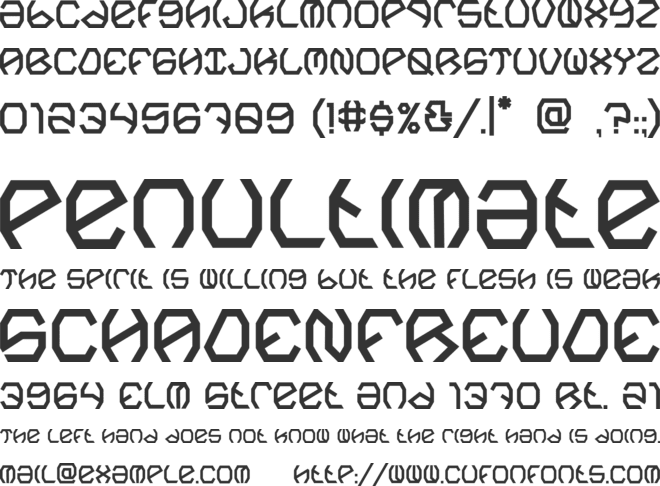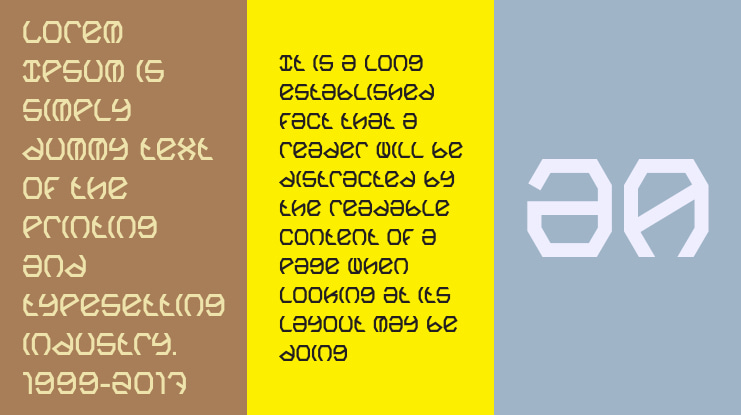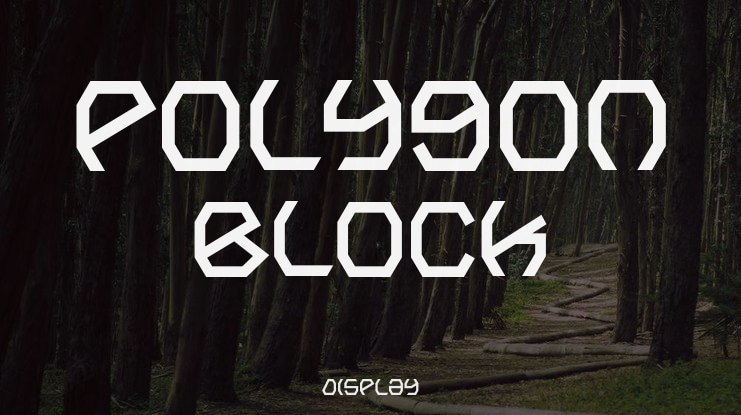
Step into the future with Polygon Block, a geometric sci-fi font designed to embody the essence of digital evolution. Each letterform is constructed with hexagonal and polygonal shapes, reflecting a structured yet edgy personality. This font bridges the gap between advanced technology and artistic clarity. Its clean angles, techno contours, and modern architecture make it a perfect match for futuristic branding, digital posters, game titles, or tech startup identities. Polygon Block thrives in any layout that demands innovation, structure, and high-impact visibility.
This font presents a bold, commanding presence while maintaining versatility across digital and print media. The sleek lines and modular design create a coded visual rhythm that appeals to sci-fi enthusiasts, UX designers, and cyberpunk creatives alike. Use it in film titles, esports branding, digital ads, or tech editorial covers to immediately communicate progress, precision, and futuristic depth. Its uppercase and lowercase characters, along with symbol support, deliver maximum usability without compromising style integrity.